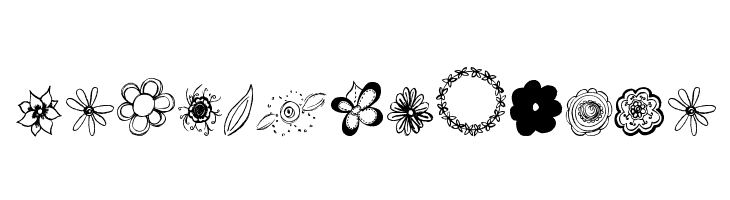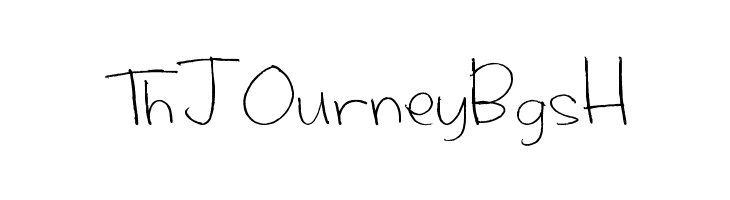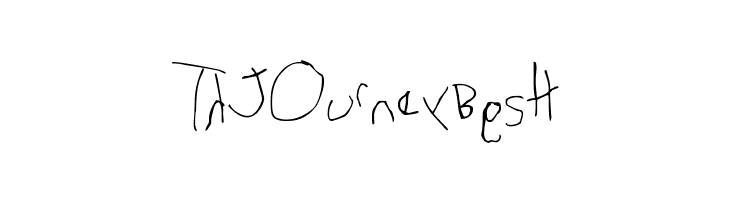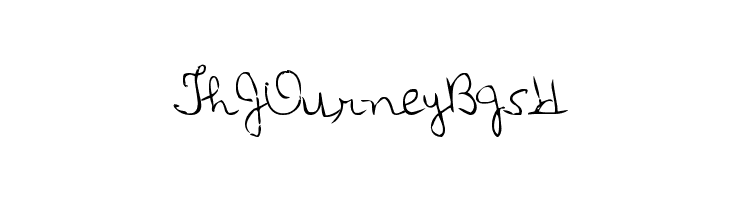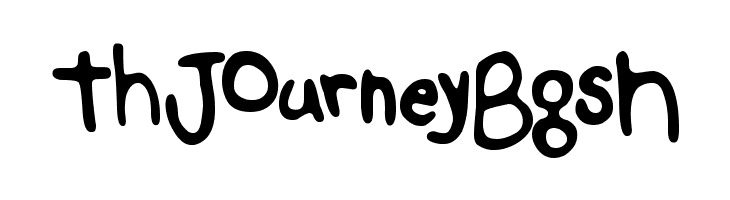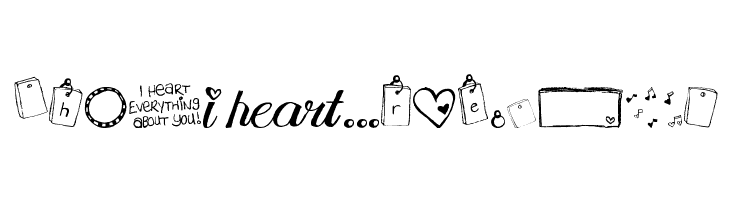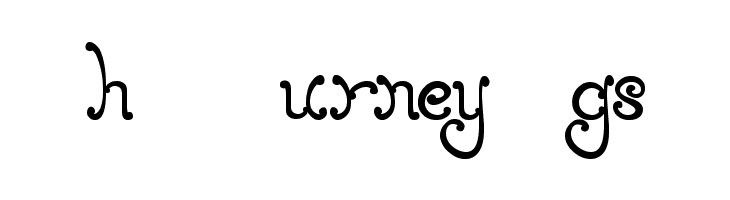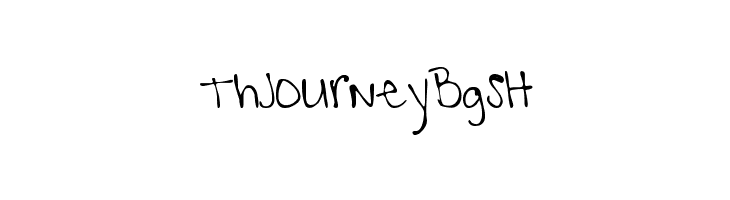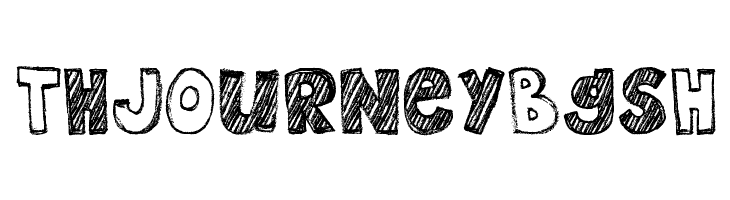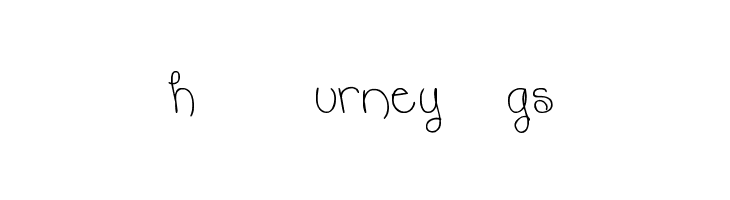
A whimsical and decorative font with intricate curls and loops.
A playful, hand-drawn font with a bold, sketch-like appearance.
Hand-drawn floral doodle decorative set.
A playful, informal handwritten font with irregular strokes and a whimsical appearance.
A playful, hand-drawn font with bold, rounded characters.
A playful, casual handwritten font with irregular, whimsical strokes.
A whimsical, handwritten font with playful decorative elements.
A whimsical, love-themed font with hand-drawn sketches and playful elements.
A playful, handwritten font with an informal and whimsical style.
A playful handwritten font with flowing, irregular strokes and unique character designs.